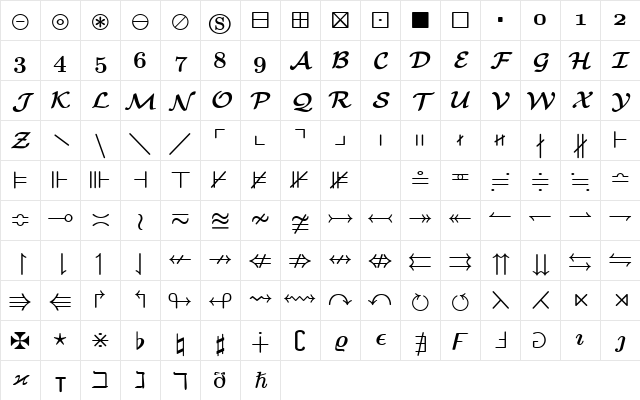
Euclid Math One Bold
Designer: Design Science, Inc.
Design Context for Euclid Math One
Euclid Math One is a composed and adaptable typeface that performs quietly and consistently across a wide range of design contexts. Its bold stroke weight gives it real presence on the page.